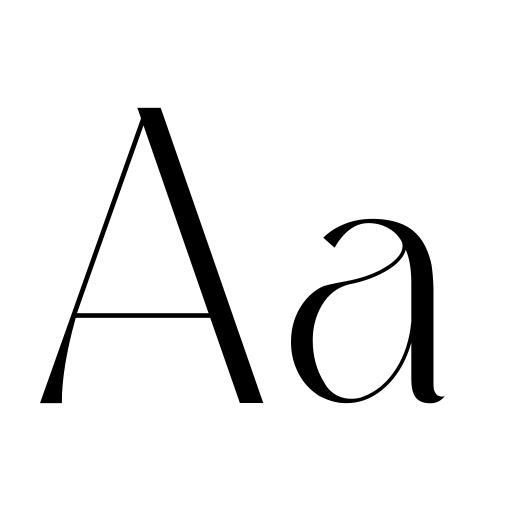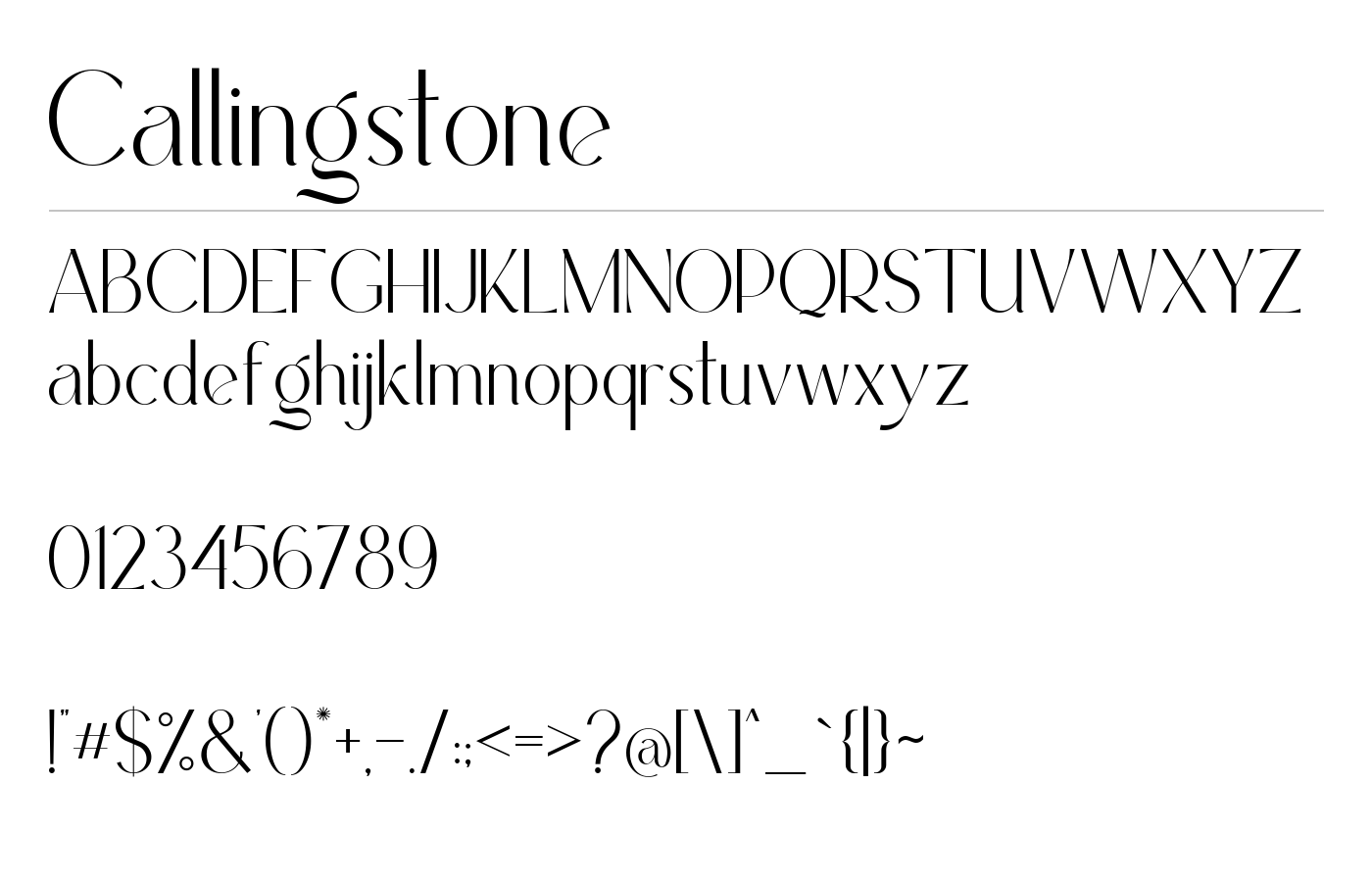
Callingstone is an elegant serif font characterized by its slender, high-contrast strokes and delicate, refined details. With its tall x-height and graceful curves, it offers a sophisticated and modern feel, making it ideal for luxury branding, fashion, editorial headlines, and upscale packaging where a touch of class and distinction is desired.
Callingstone Font
About Callingstone Font
| Font family | Callingstone Font |
| Designer | Nofi Sofyan Hadi |